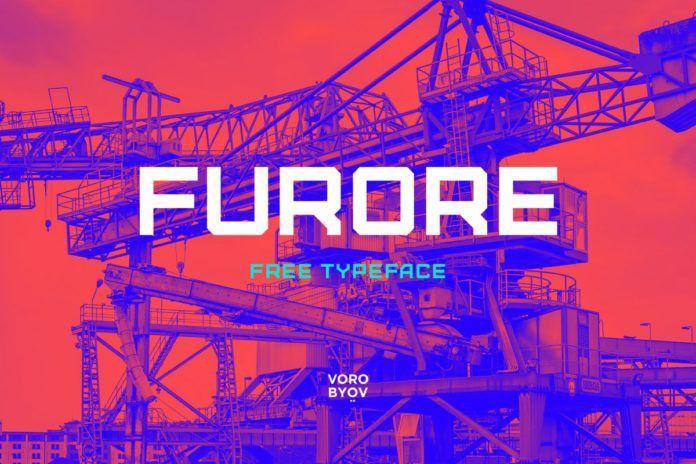
Furore Typeface
It’s from Daniel Vorobyov & Ivan Gladkikh, is a solid industrial sans-serif font.
It kindly supports your design whether it shows an excentric or average character, headline or caption.
It’s will always underline your creation with a decent look while it remains highly legible.
The font is suitable to use for many occasion such as game, music, movie title, brand, technology, space and many more 🙂